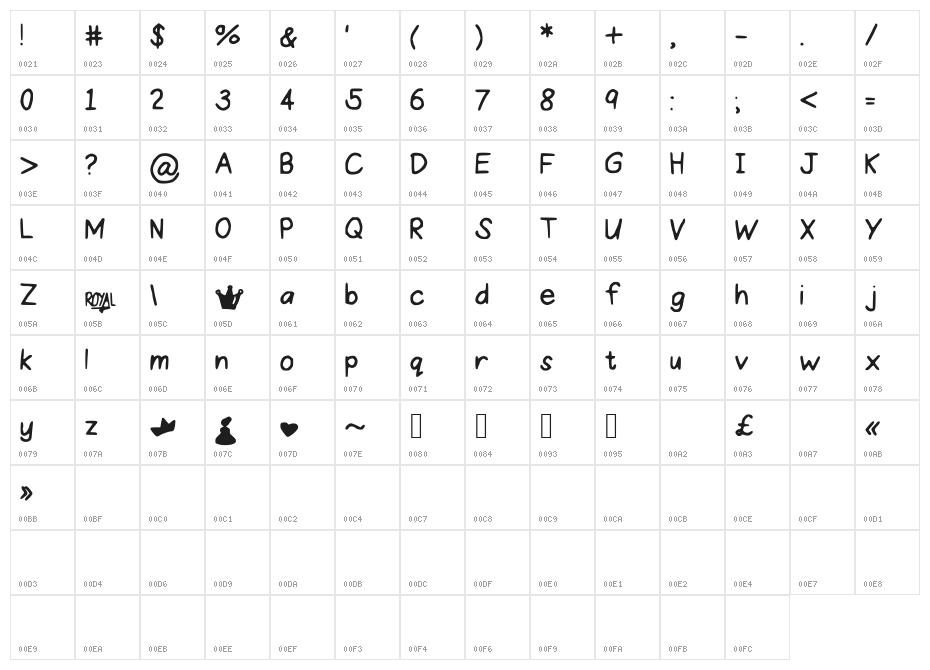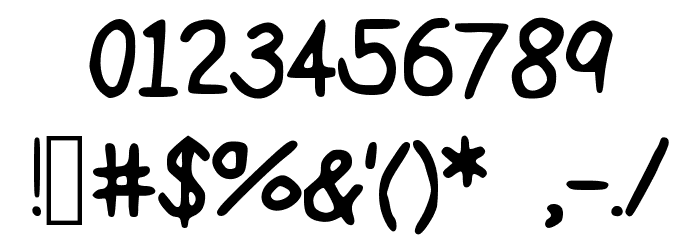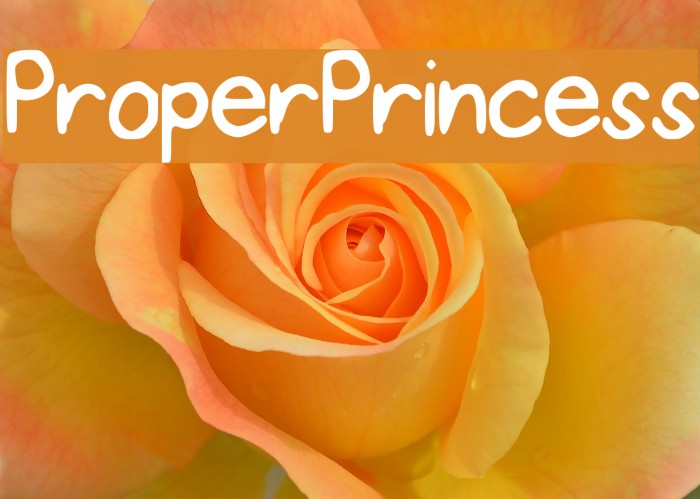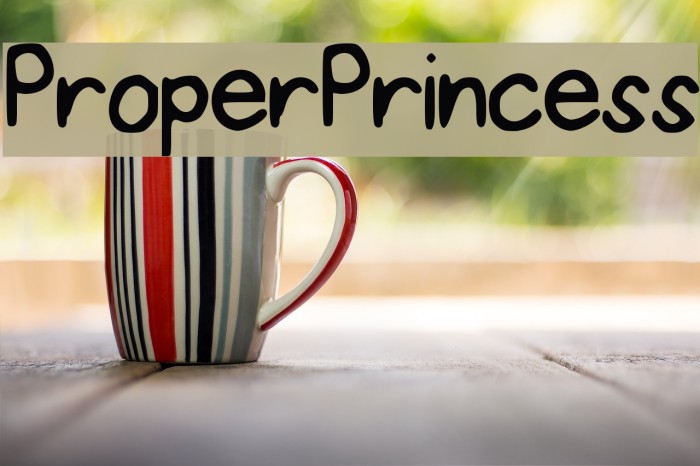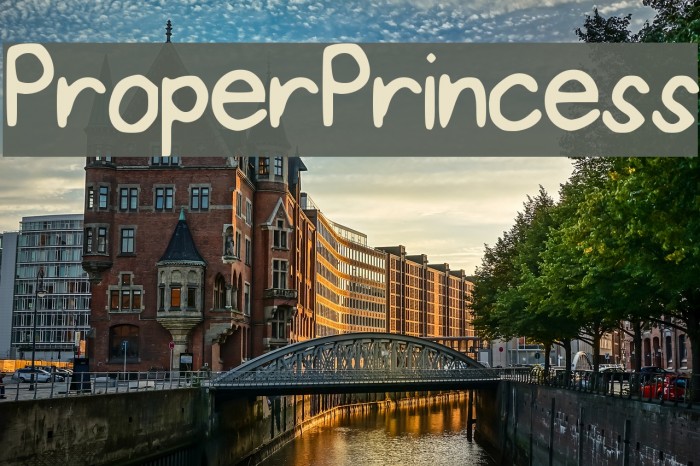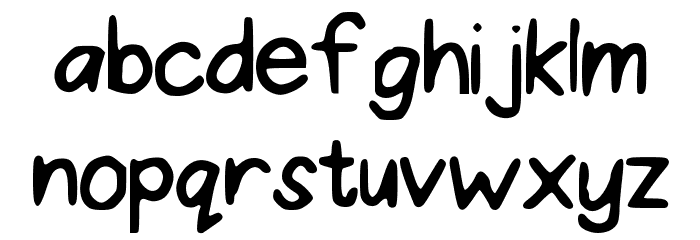
ProperPrincess Font
ProperPrincess Description
This playful and whimsical font features a handwritten style with a casual and friendly appearance. The characters are slightly irregular, adding a touch of personality and charm. The strokes are consistent in thickness, providing a uniform look across all letters and numbers. The font maintains a balanced spacing between characters, ensuring readability while retaining its unique style. It includes a full set of uppercase and lowercase letters, numbers, and a variety of special characters, making it versatile for different design needs.
| Overall Style | Casual, Playful |
| Use Case | Headlines, Logos, Informal Text |
| Proposed Projects | Ideal for children's books, greeting cards, playful branding, and casual invitations. |